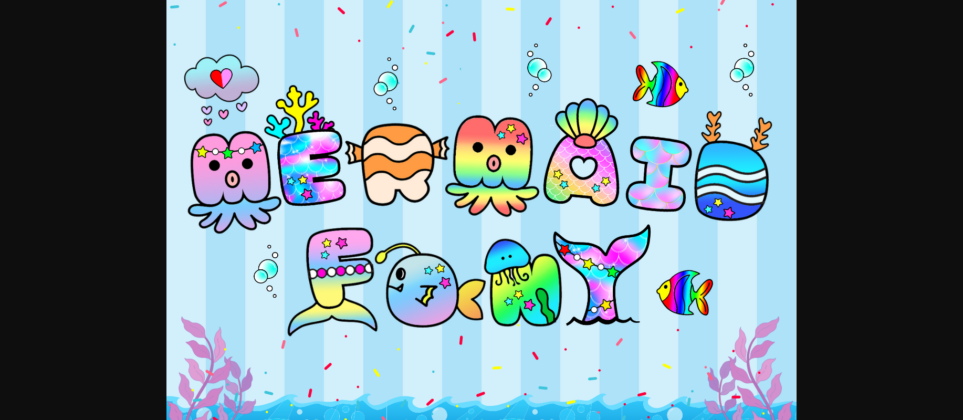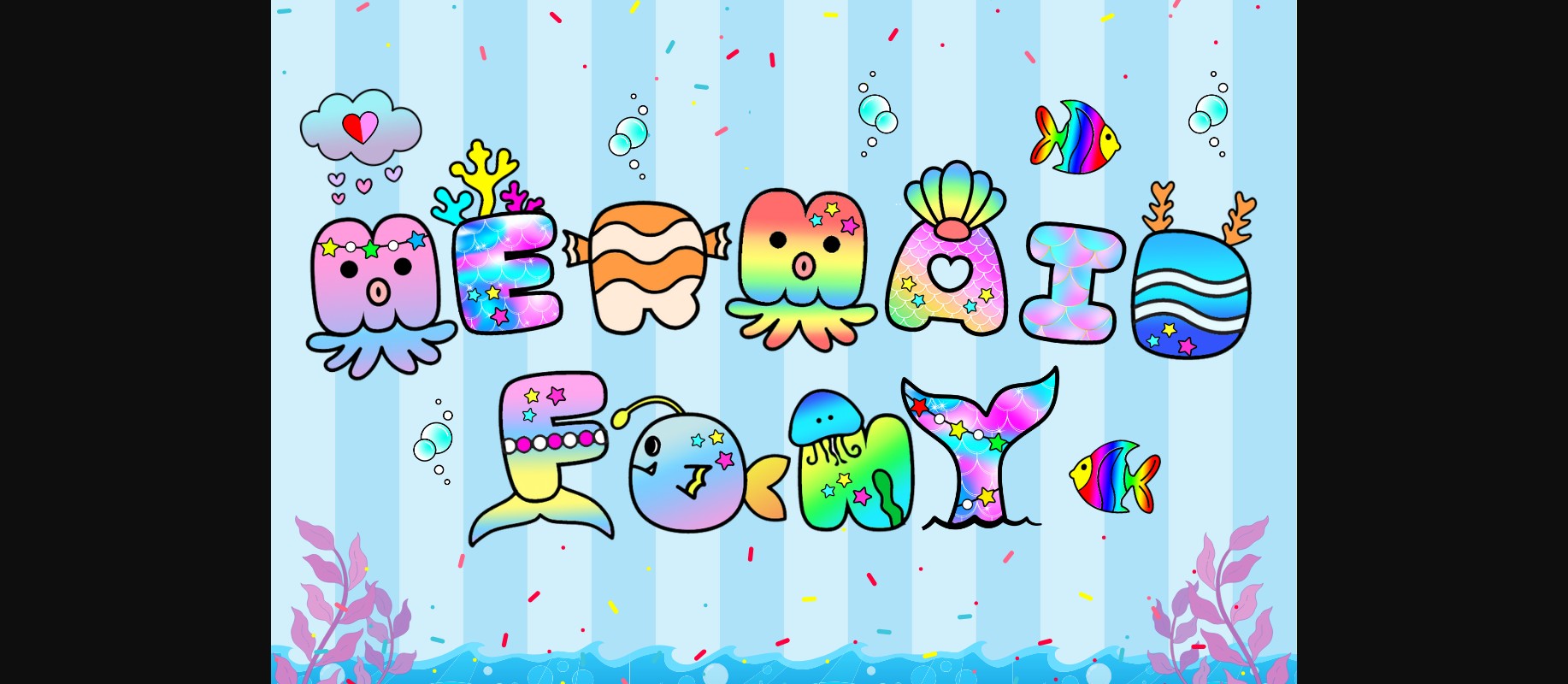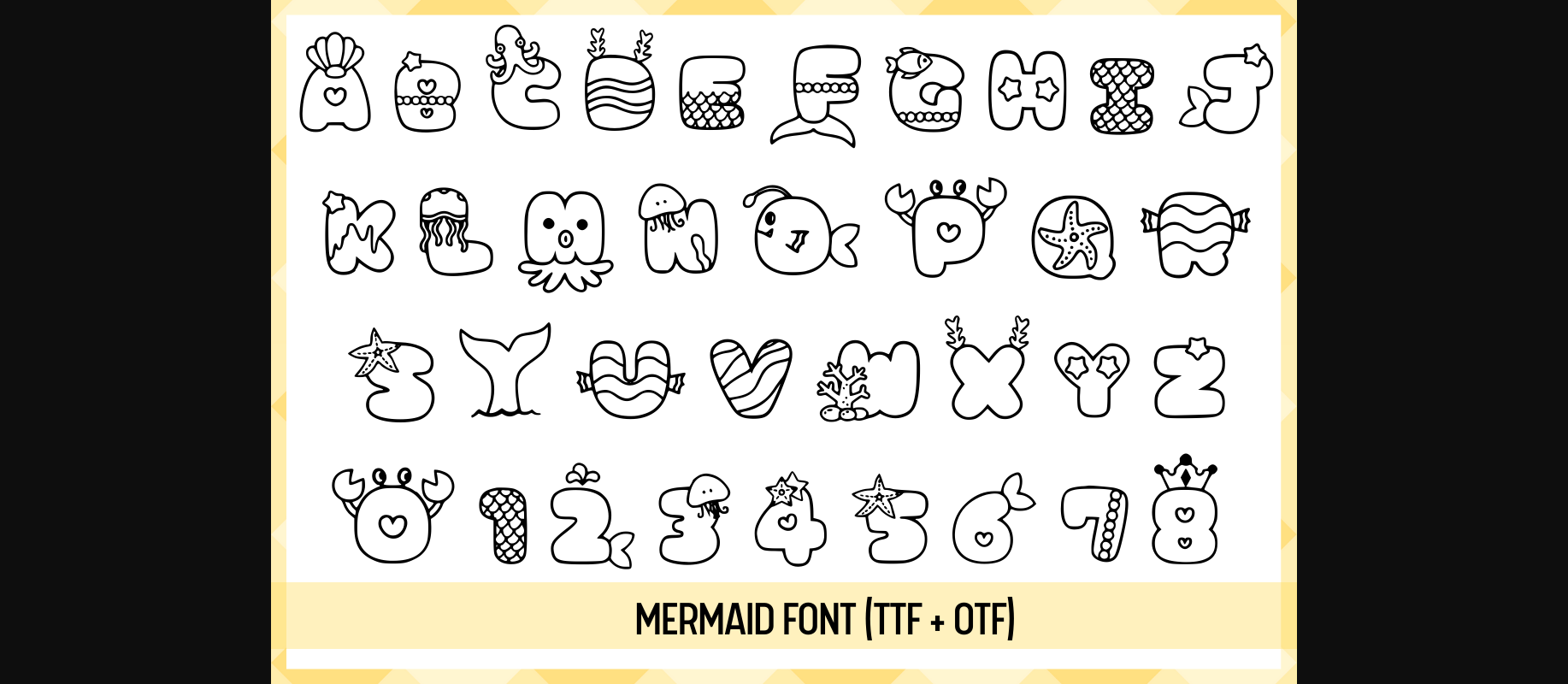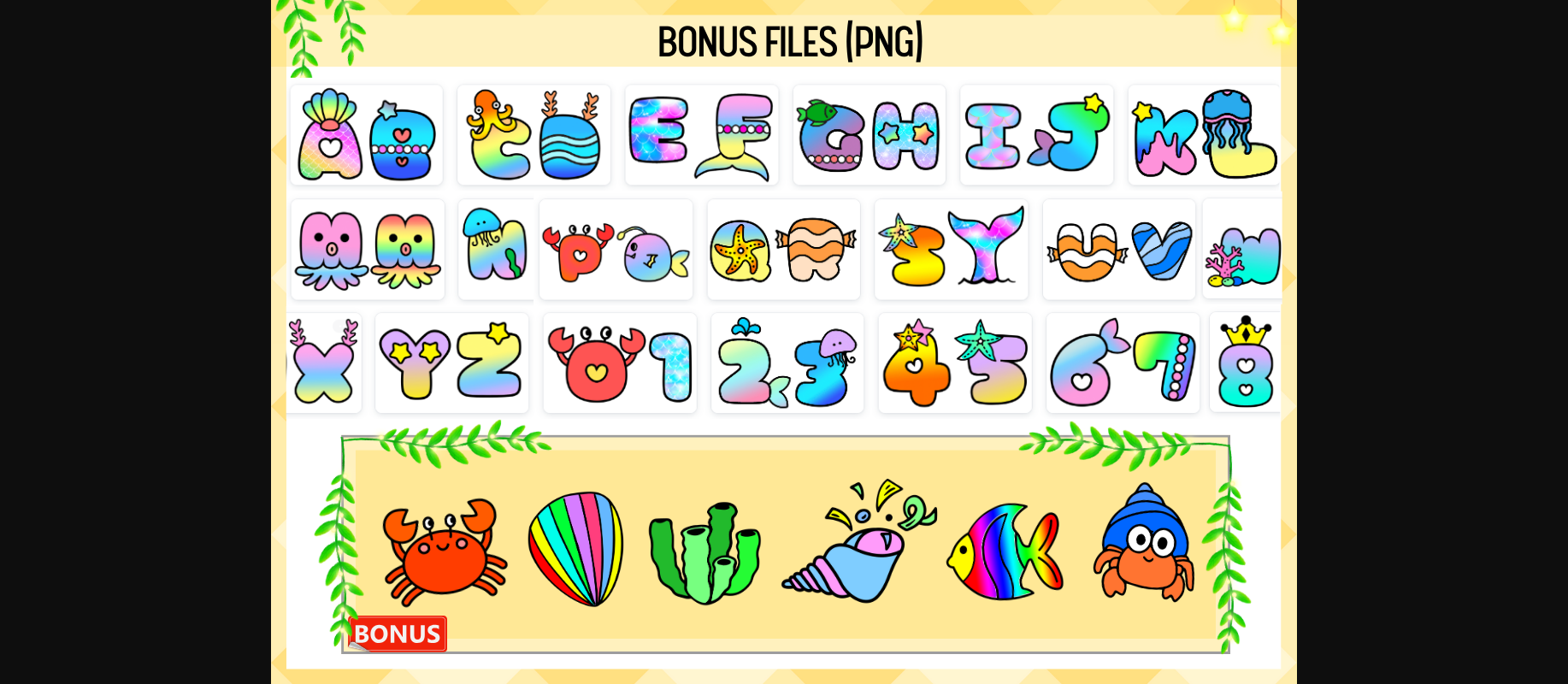
About Mermaid Font
Mermaid is a whimsical and enchanting typeface inspired by the mythical creatures of the sea. With flowing lines reminiscent of ocean waves and intricate details resembling mermaid scales, it brings a touch of magic to any design. Perfect for fantasy-themed projects, invitations, and underwater adventures.